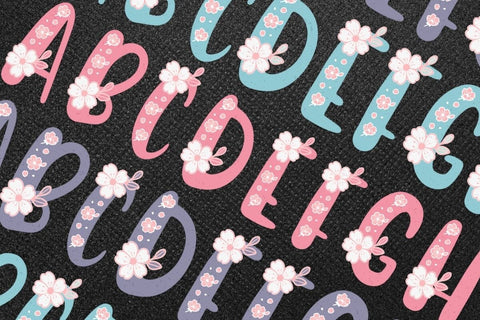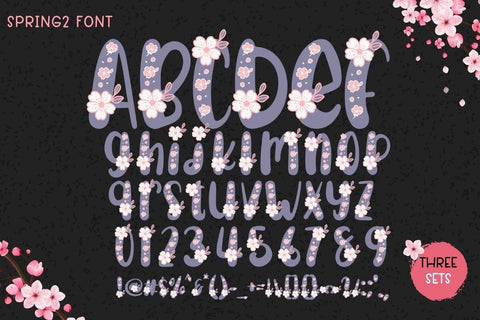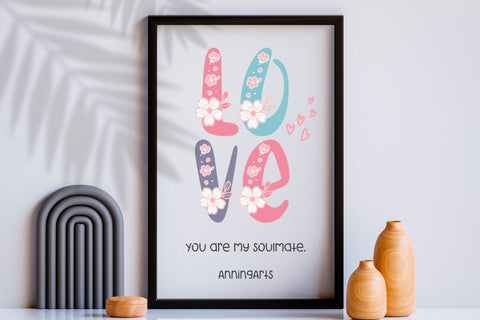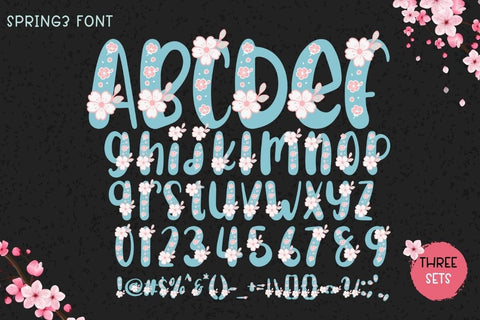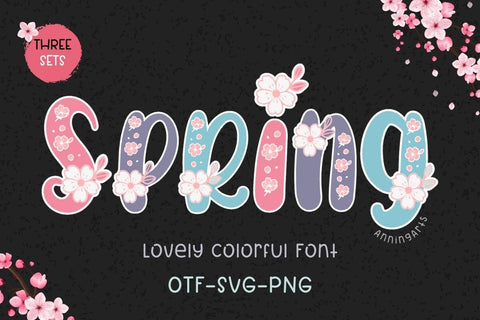
Spring - Colorful Font
Spring is a lovely colorful font, which is perfect for all your Spring-themed projects. You can use it to design products such as banners, content, mugs, cards, shirts, stationery, social media posts, and more!
This font has 3 color sets.